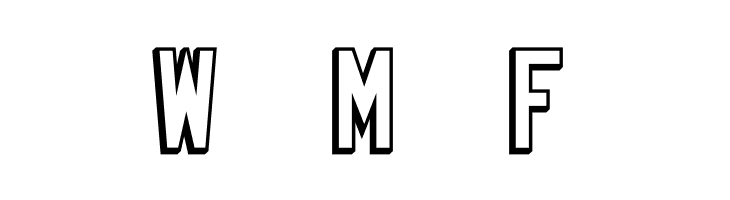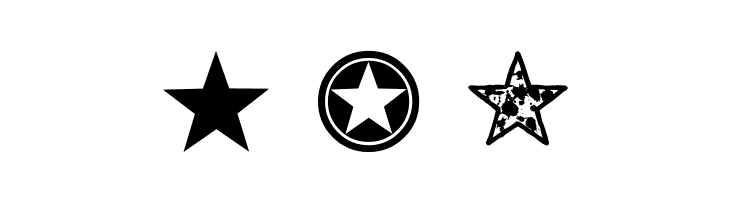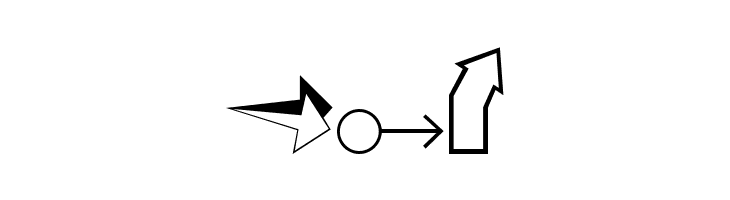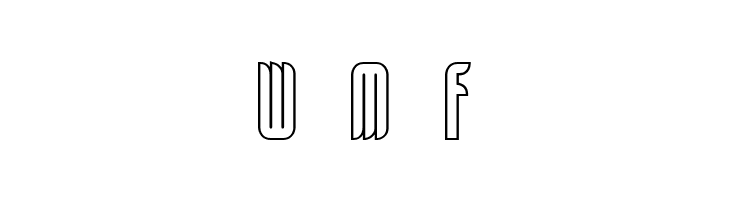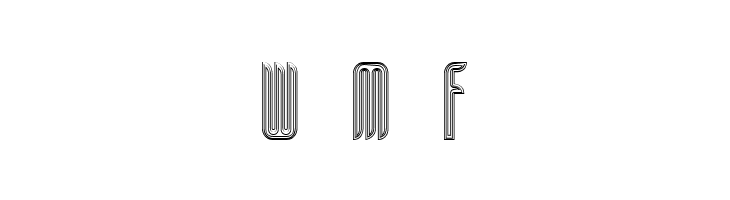
A modern, outlined font with rounded edges and consistent spacing.
A bold, outlined font with a modern and playful style.
A playful decorative font with assorted star icons and outlined squares.
A versatile set of outlined arrows in various styles and directions.
A bold, retro-inspired font with playful, outlined characters.